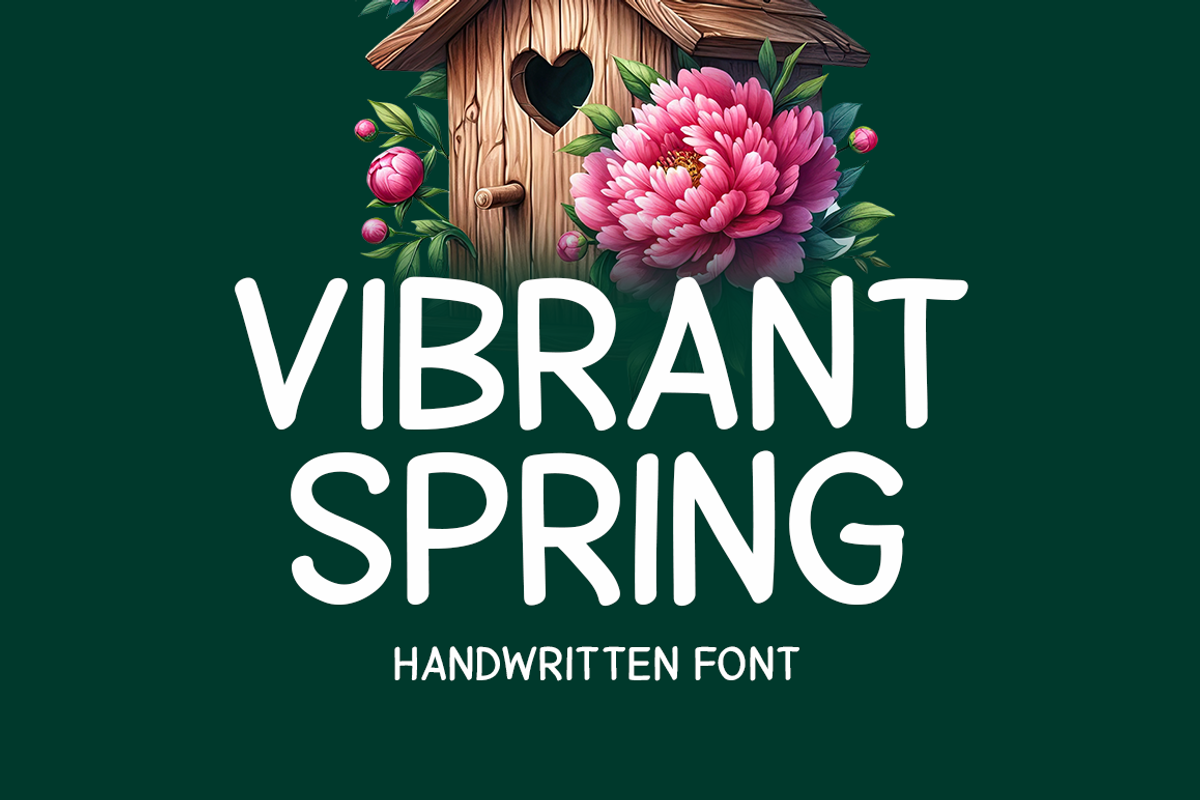
Vibrant Spring Typeface Free Download
Vibrant Spring Typeface Free Download is a cheerful and fresh typeface that captures the spirit of the season with playful curves and a light, uplifting vibe. Perfect for spring-themed designs, greeting cards, event invitations, product packaging, and social media content, this font brings brightness and warmth to any project.
Its hand-drawn feel and organic letterforms make it ideal for creative designs that need a touch of nature and positivity. Whether you're working on a floral boutique brand or seasonal promo graphics, Vibrant Spring adds a whimsical and joyful tone.